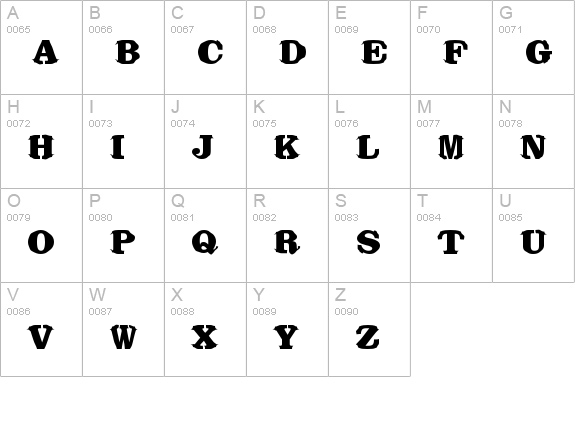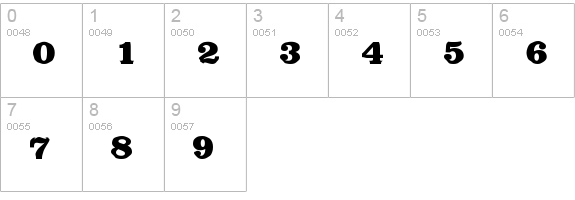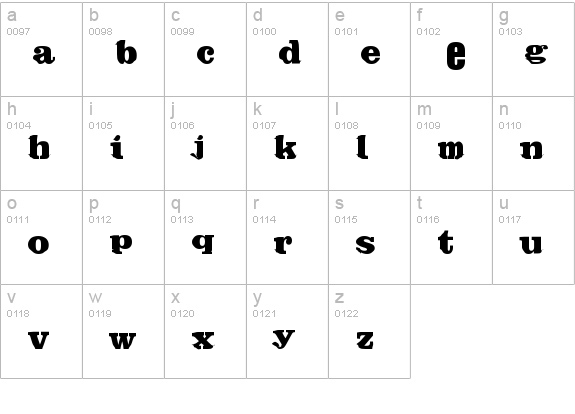
Bikini Font Details
Bikini font is a whimsical and playful typeface that exudes a sense of fun and creativity. With its rounded edges and unique letterforms, Bikini font is perfect for adding a touch of charm to any design project. Whether you're creating invitations, posters, or branding materials, Bikini font will bring a sense of lightheartedness to your work. Best of all, Bikini font is available for free download at FontsMarket.com. This means you can easily access this delightful font and start using it in your designs right away. Don't miss out on the opportunity to add a touch of personality to your projects with Bikini font - download it for free today!